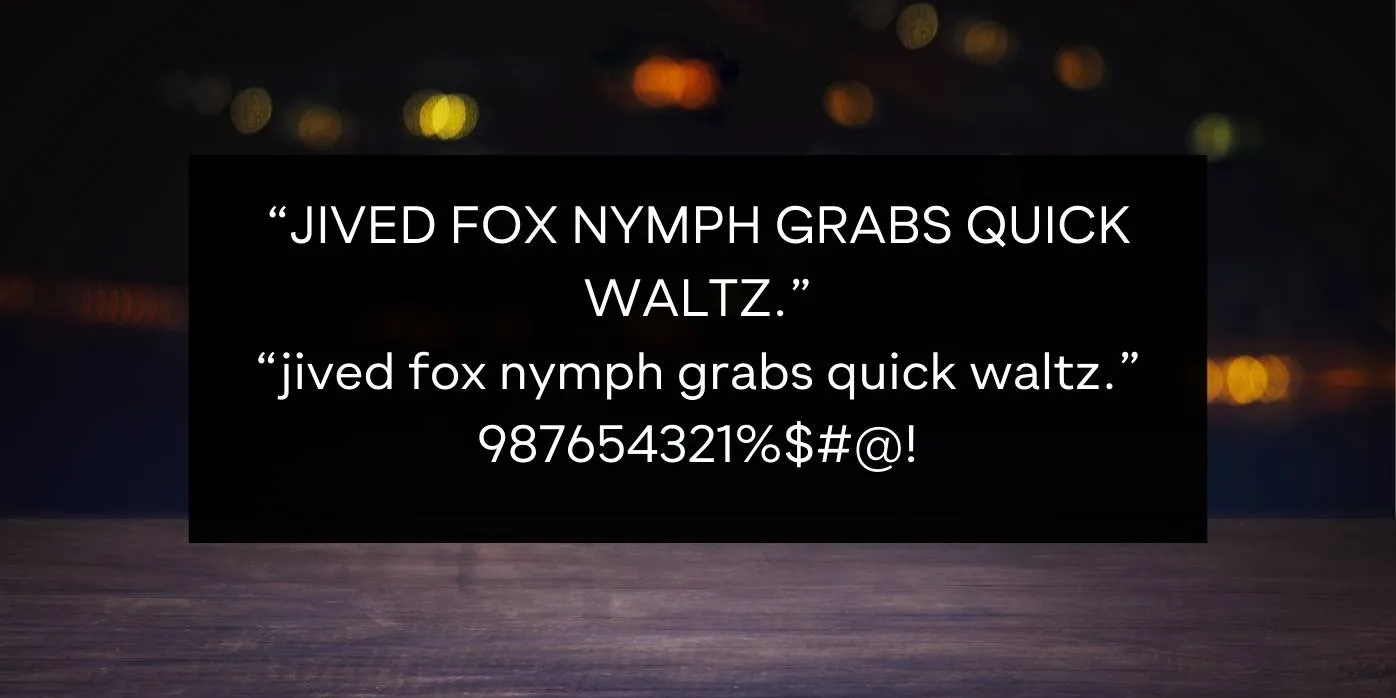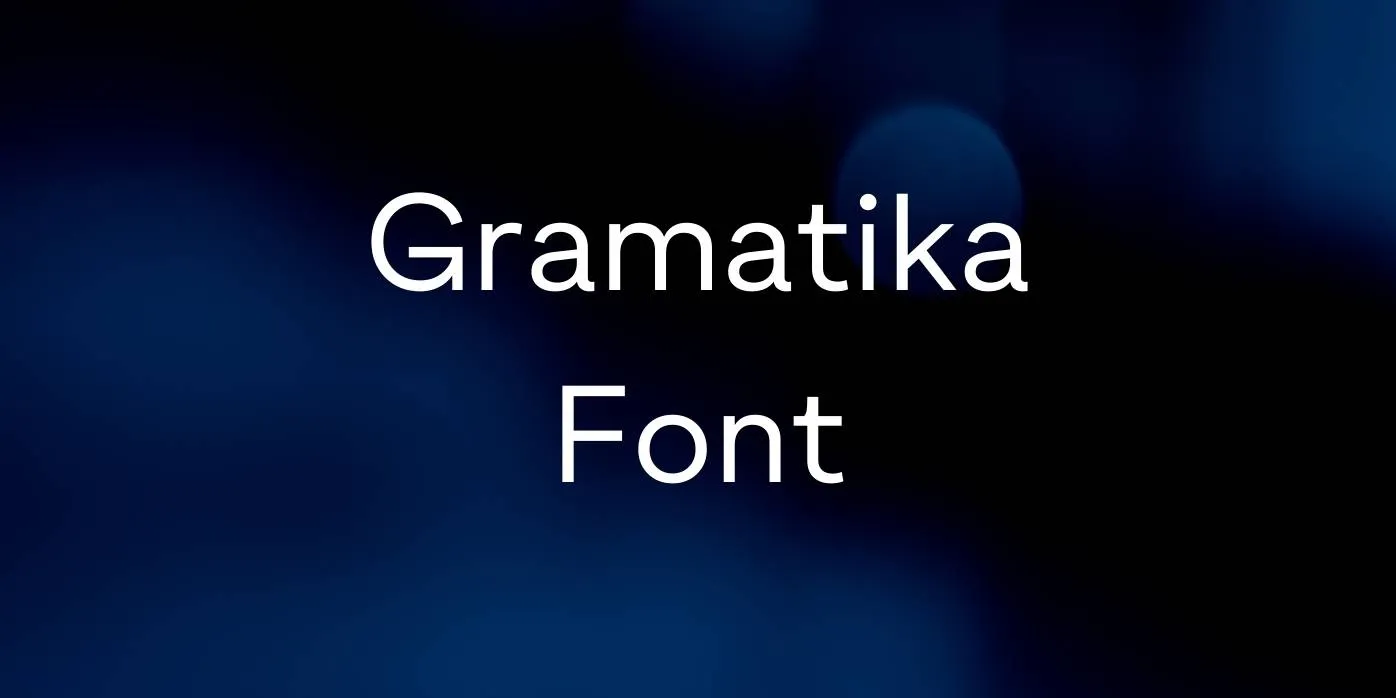
Gramatika Font
Today we introduce Gramatika Font which was designed by Gumpita Rahayu. This typeface belongs to the sans serif family.  This typeface is specified for CSS and HTML languages. It has neat and clear textures. This marvelous font is a modern sans serif typeface with a unique twist.
It was designed by Gumpita Rahayu, a talented Indonesian type designer. The typeface is inspired by the geometry of the human body and the Fibonacci sequence. You will have to use its alternative the light font which has the same features. It is famous for its copy-and-paste function.
The Gramatika Font has a simple and clean design that makes it perfect for any project. The typeface is available in two sizes: Regular and Bold. If you are looking for a modern sans serif typeface, then this staggering font is a great option. It has a unique design that will make your project stand out from the rest.